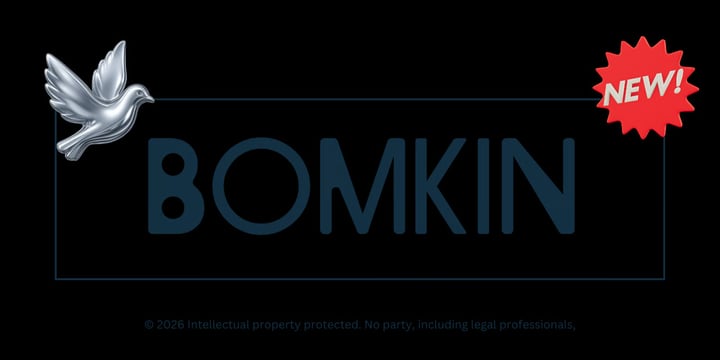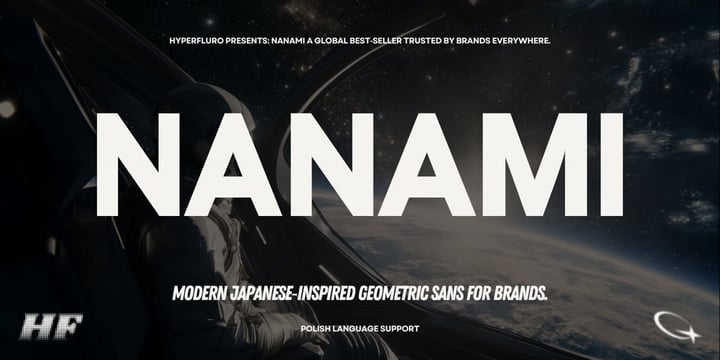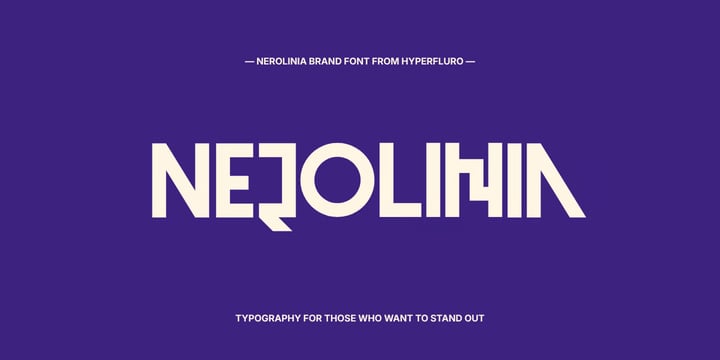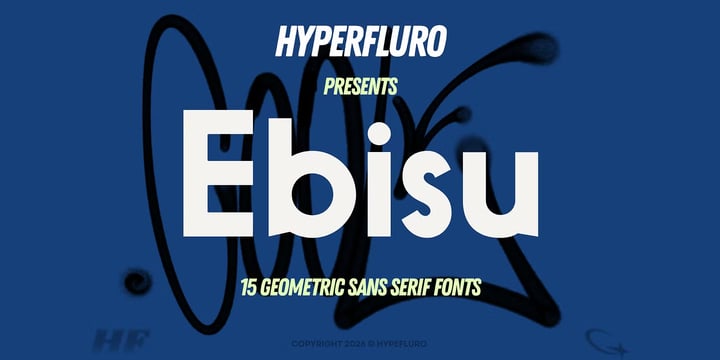
THE TYPE COLLECTION
THE TYPE COLLECTION: A Curated Suite of Bestsellers An exclusive assembly of our most celebrated, award-winning typefaces engineered to elevate your creative output.
THE TYPE COLLECTION brings together our most sought-after, globally recognized bestsellers into a single, high-performance typographic toolkit. Designed for creative directors, elite branding agencies, and forward-thinking designers, this bundle bridges the gap between Swiss-influenced minimalism and avant-garde luxury. Every typeface in this collection has been meticulously crafted to deliver exceptional optical balance, crisp detailing, and undeniable visual presence.
Why The Type Collection?
Uncompromising Quality: Impeccable kerning, balanced rhythms, and pristine curves across all weights and styles.
Limitless Versatility: Transitions effortlessly from high-fashion editorial spreads to sophisticated digital interfaces and corporate luxury branding.
Global Accessibility: Comprehensive character sets and multi-language script support (including Cyrillic).
THE TYPE COLLECTION: A Curated Suite of Bestsellers An exclusive assembly of our most celebrated, award-winning typefaces engineered to elevate your creative output.
THE TYPE COLLECTION brings together our most sought-after, globally recognized bestsellers into a single, high-performance typographic toolkit. Designed for creative directors, elite branding agencies, and forward-thinking designers, this bundle bridges the gap between Swiss-influenced minimalism and avant-garde luxury. Every typeface in this collection has been meticulously crafted to deliver exceptional optical balance, crisp detailing, and undeniable visual presence.
Why The Type Collection?
Uncompromising Quality: Impeccable kerning, balanced rhythms, and pristine curves across all weights and styles.
Limitless Versatility: Transitions effortlessly from high-fashion editorial spreads to sophisticated digital interfaces and corporate luxury branding.
Global Accessibility: Comprehensive character sets and multi-language script support (including Cyrillic).